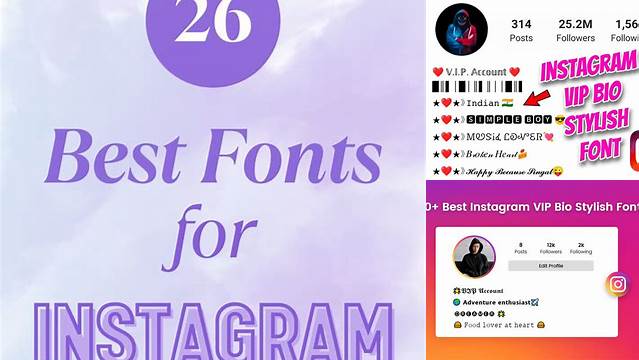
Cool Fonts For Instagram Bio: Aesthetic Guide
Hey guys! Ever wondered how to make your Instagram bio pop? One of the easiest ways is by changing up your font! A cool, aesthetic font can instantly grab attention and reflect your personality or brand. So, let's dive into how to change fonts on your Instagram bio and make it look amazing. We're going to cover everything from the basics to some awesome tips and tricks. Get ready to level up your Insta game!
1. Why Use Cool Fonts for Your Instagram Bio?
So, why bother changing fonts on your Instagram bio? Well, think of your bio as your digital first impression. It's the first thing people see when they land on your profile. A unique font can help you stand out from the crowd. It adds a touch of personality and creativity, making your profile more memorable. Plus, it’s a simple way to express your brand or personal style. Imagine scrolling through endless Instagram profiles – a standout bio with a cool font can be the difference between someone clicking "follow" or scrolling past. It’s all about making that impactful first impression, and trust me, a great font can do wonders! Let’s explore some specific reasons why using cool fonts is a game-changer for your Instagram bio.
Making a Strong First Impression
First impressions matter, especially online. Your Instagram bio is essentially your digital handshake. When someone visits your profile, they’re making a snap judgment within seconds. A visually appealing bio, featuring a cool and unique font, immediately signals that you're creative, professional, or simply someone worth following. It's like dressing nicely for a job interview – you want to put your best foot forward. A well-chosen font can convey a sense of style and attention to detail, making potential followers more inclined to stick around and see what you’re all about. So, changing fonts on your Instagram bio is a simple yet powerful way to ensure you're making a positive and lasting first impression. Think of it as your digital calling card – make it count!
Reflecting Your Brand or Personality
Your Instagram bio is a mini billboard for your brand or personal identity. Changing fonts on your Instagram bio allows you to inject a dose of personality and reflect your unique style. Are you a minimalist? A bold sans-serif font might be perfect. Do you have a whimsical, creative vibe? A cursive or handwritten font could be the way to go. The font you choose communicates more than just words; it conveys your overall aesthetic. For businesses, a consistent font that aligns with your brand’s visual identity can reinforce brand recognition and create a cohesive online presence. For personal profiles, it's a chance to show off your individuality and let your personality shine through. So, don't underestimate the power of fonts – they're a visual representation of who you are or what your brand stands for.
Standing Out from the Crowd
Let’s face it, Instagram is a crowded space. Millions of profiles are vying for attention, and it's easy to get lost in the shuffle. Changing fonts on your Instagram bio is a simple yet effective way to stand out from the sea of standard bios. A unique font catches the eye and makes your profile more memorable. It’s a small detail that can make a big difference. Think about it – how many profiles have you scrolled past without a second glance? A distinctive font can be the hook that grabs someone’s attention and makes them want to learn more. It shows you've put thought and effort into your profile, signaling that you're serious about your online presence. So, if you want to break through the noise and make a lasting impression, playing with fonts is a fantastic way to do it. It’s all about making that visual splash and setting yourself apart.
2. Overview of Font Generators for Instagram
Alright, so how do you actually change fonts on your Instagram bio? Instagram doesn’t offer a built-in font selection, so you’ll need to use a font generator. These nifty tools are super easy to use. You simply type your text into the generator, and it spits out your words in a variety of cool fonts. Then, you can copy and paste your chosen font into your Instagram bio. There are tons of font generators out there, both as websites and apps. We'll explore some of the best ones later, but for now, let's get an overview of how these generators work and what to look for. It's all about finding the right tool to unleash your inner font wizard!
How Font Generators Work
Font generators might seem like magic, but they’re actually based on a clever workaround. Instagram’s text fields only support a standard character set, but these generators use special Unicode characters that resemble different fonts. Unicode is a universal character encoding standard, which means it includes a vast range of symbols and characters from various languages and scripts. Font generators leverage this by transforming your text into Unicode characters that look like stylish fonts. When you copy and paste these characters into your Instagram bio, they appear as a different font because Instagram renders them as the corresponding Unicode glyphs. It's a bit like a secret code that allows you to bypass Instagram’s font limitations. So, while you're not technically changing the font in the traditional sense, you’re creating the illusion of a different font using Unicode magic. Pretty cool, right?
Key Features to Look for in a Font Generator
When choosing a font generator, there are a few key features to keep in mind to ensure you get the best results. First, variety is key. You want a generator that offers a wide range of font styles, from elegant scripts to bold sans-serifs, so you can find the perfect match for your aesthetic. A good generator should also be user-friendly, with a clean and intuitive interface. You don’t want to spend hours figuring out how to use it! Another crucial feature is compatibility. Make sure the generator creates fonts that display correctly on different devices and operating systems. Some Unicode characters may not render properly on certain platforms, so testing is essential. Lastly, consider additional features like the ability to add symbols or customize text. A generator that offers these extras can give you even more creative control over your bio. So, keep these features in mind when you're exploring font generators, and you'll be sure to find one that suits your needs.
Popular Font Generator Websites and Apps
Now, let’s talk about some popular font generator websites and apps that can help you change fonts on your Instagram bio. There are tons of options out there, but some stand out for their ease of use and variety of fonts. Websites like LingoJam, Cool Fonts, and FontGet are great for quick and easy font generation directly in your browser. They offer a wide selection of fonts and often have simple interfaces that make it a breeze to copy and paste your text. For mobile users, apps like Fonts for Instagram and Stylish Text provide convenient font generation on the go. These apps often include additional features like symbol libraries and customization options, giving you even more creative control. When choosing a font generator, it's worth trying out a few different options to see which one you prefer. Each tool has its own unique strengths, so experiment until you find the perfect fit for your style and needs. We’ll dive deeper into some specific recommendations later on!
3. Step-by-Step Guide to Changing Fonts
Okay, let's get down to the nitty-gritty. How do you actually change fonts on your Instagram bio using a font generator? It’s super easy, I promise! Here’s a step-by-step guide to walk you through the process. First, you'll need to choose a font generator – we've already talked about some great options. Then, you'll type your bio text into the generator, select your favorite font, and copy the generated text. Finally, you'll paste it into your Instagram bio and voilà ! Your bio now has a cool new font. Let's break each step down in detail to make sure you nail it every time. Ready to give your bio a font-tastic makeover?